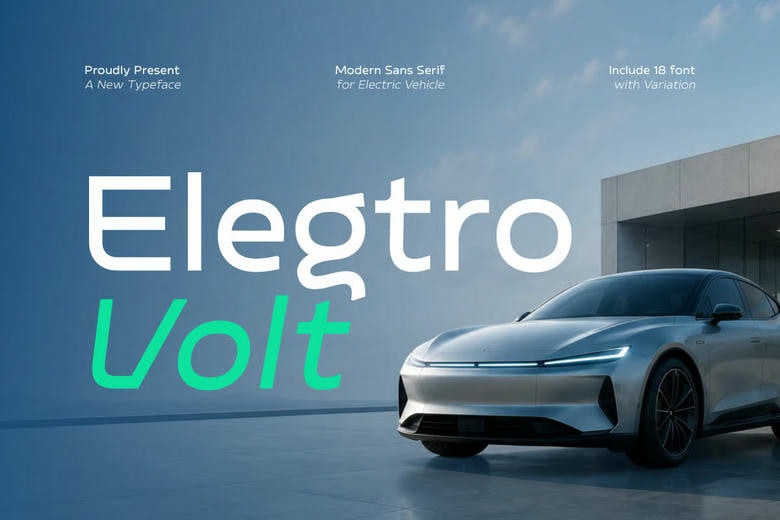
Elegtro Volt Font
Elegtro Volt is a modern sans-serif font with a clean, futuristic style, perfect for electric vehicle brands and automotive tech projects. Its geometric shapes and sleek letters make it a great choice for headlines, logos, campaigns, ads, and other visuals.
This font works well for manufacturers, battery tech startups, autonomous driving software, charging networks, electric mobility, automotive technology, and renewable energy brands. Elegtro Volt is also a strong choice for vehicle branding, product launches, charging station campaigns, websites, mobile apps, social media, and packaging.
Elegtro Volt Sans Serif Font